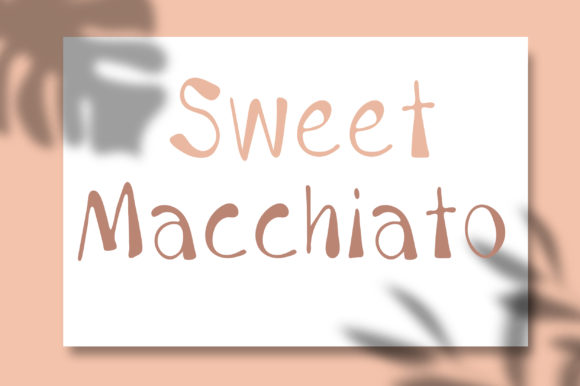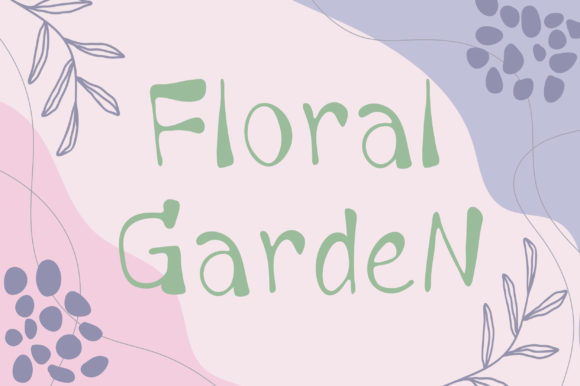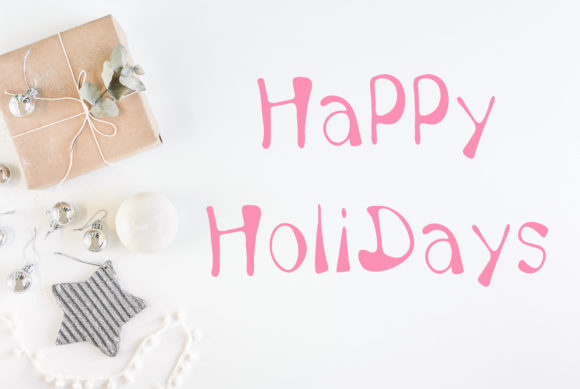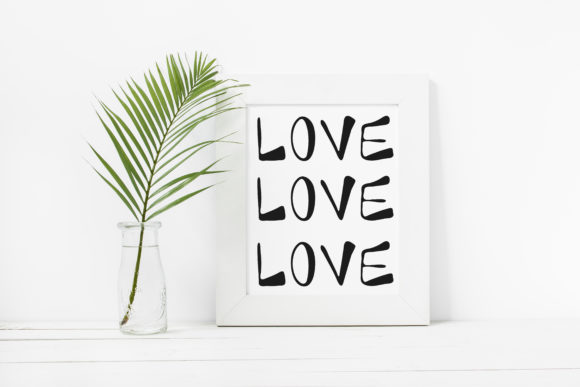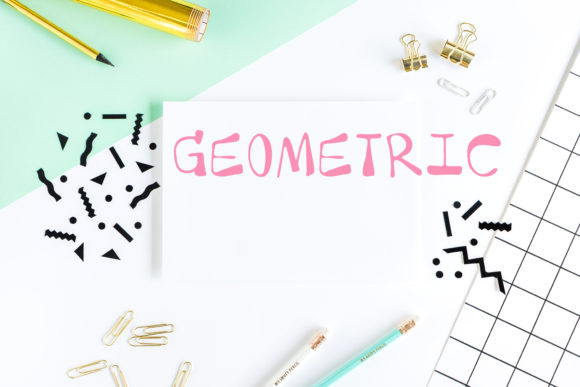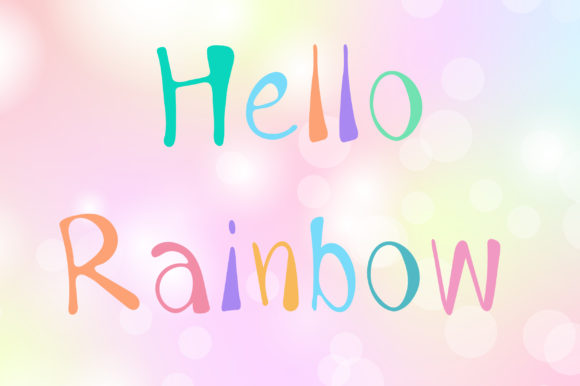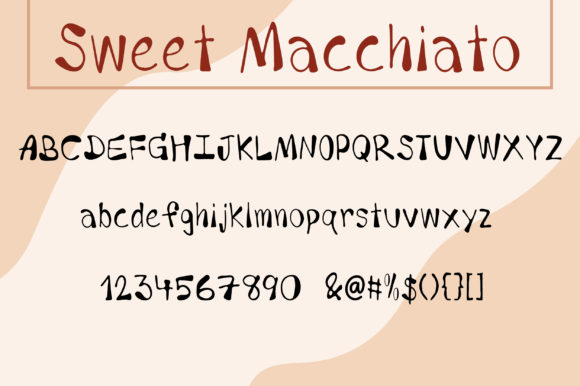
Sweet Macchiato Font
About Sweet Macchiato Font
Sweet Macchiato is a cute and sweet handwritten font with a cheerful feel. This font is perfect for logos, quotes, blogs, crafts projects, graphic designs, invitation cards, social media posts and more!